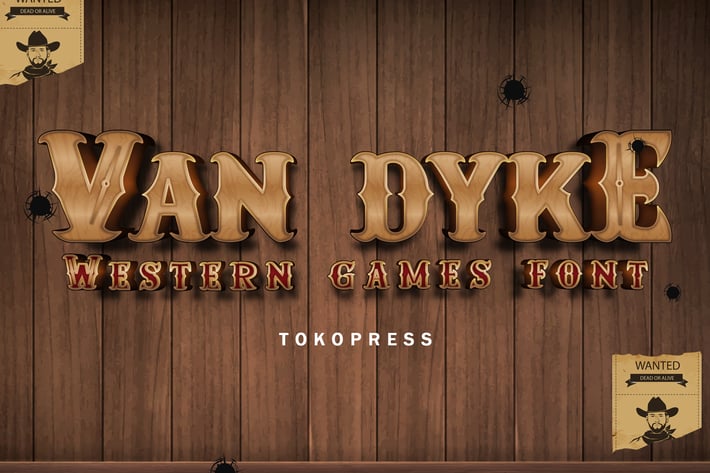
Van Dyke - Western Font
Van Dyke - Western Retro Display Typeface
Van Dyke is a western-style retro typeface designed for branding projects that need a bold, rugged aesthetic with character. Inspired by classic saloon signage and old-school wooden textures, Van Dyke uses sturdy, all-caps letterforms with sharp slab serifs and high-impact contrast to stand out in both digital and print designs. Its vintage vibe feels masculine, commanding, and cinematic, making it a powerful fit for event posters, western-themed packaging, or rustic restaurant menus.
Whether you're crafting a rodeo event poster, designing a wild west-themed logo, or launching a vintage apparel brand, Van Dyke delivers the emotional punch your project needs. Its expressive curves and classic serif strength provide the perfect balance of nostalgia and legibility, ideal for marketers and designers seeking an authentic western atmosphere. Van Dyke isn't just a font—it's a storytelling tool for branding that needs boldness and a touch of history.
Key Features :
Rustic Meets Readable
- Inspired by wooden signage, cowboy posters, and classic American westerns
- Bold, confident serif structure with strong vertical weight
- Perfect for impactful titles, packaging, and themed merchandise
Designed for Usability
- Works well in large sizes without losing detail
- Clean kerning for consistent word shape
- Western tone with high flexibility—branding, signage, or print design
Stylistically Distinct
- All caps style for high-contrast layouts
- Strong legibility and textured character in every glyph
- Brings energy and theme consistency to your visuals